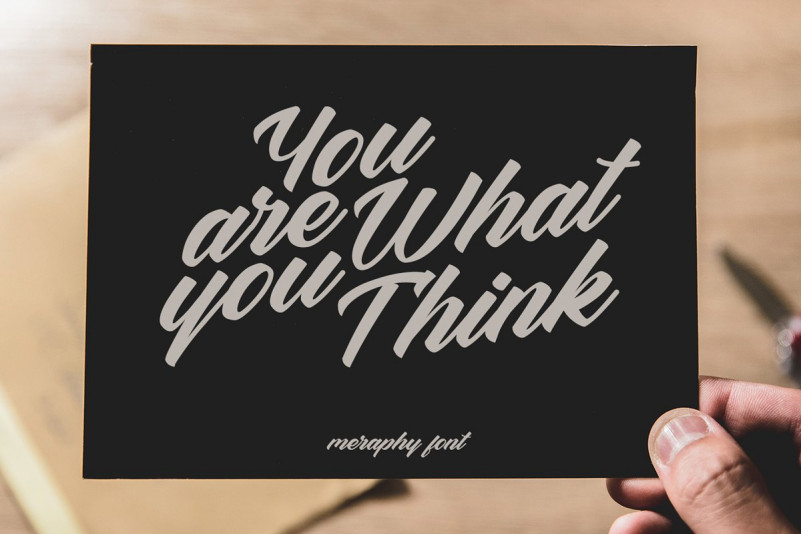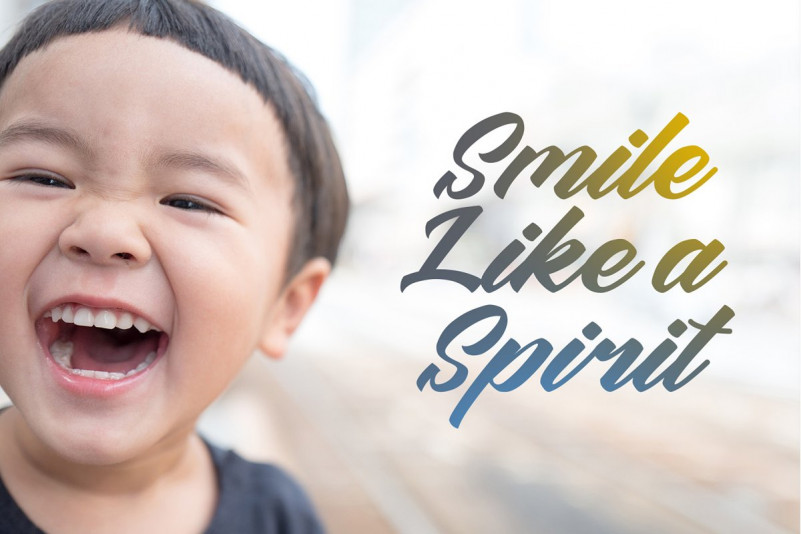
Meraphy Script Font
Hello friend. This is a modern calligraphy script font. It’s modern calligraphy font perfect for any stylish your latest project! Introducing Meraphy Font. It’s in the script style. Set of multicolored bright letters for inscriptions and your design. Vector illustration. Isolated on white background. It’s perfect for branding projects, logo, wedding designs, social media posts, advertisements, product packaging, product designs, label, photography, watermark, invitation, stationery and any projects that need handwriting taste.